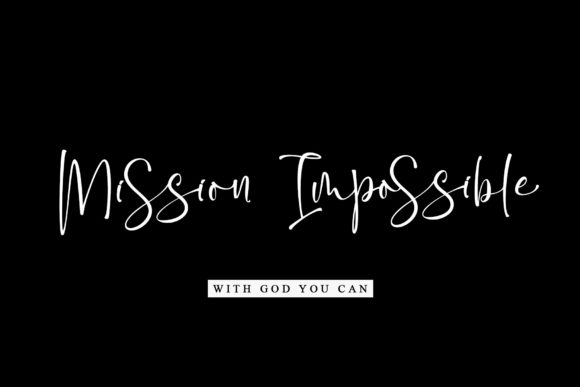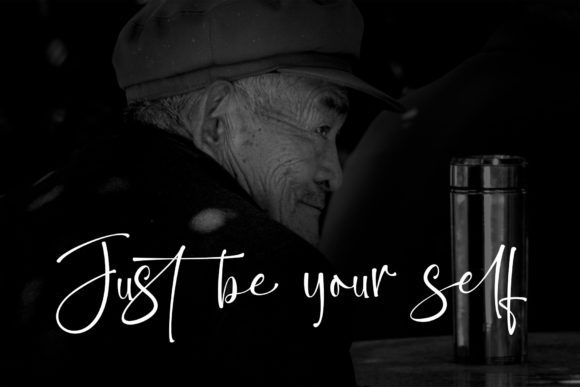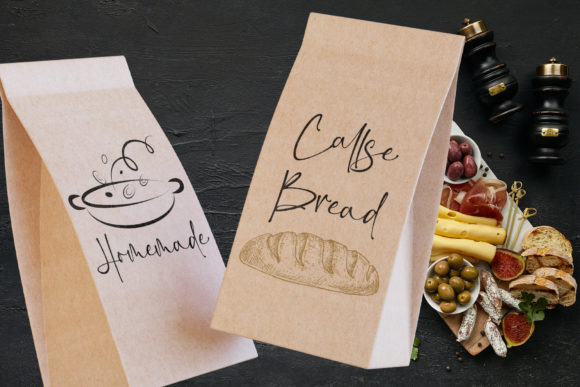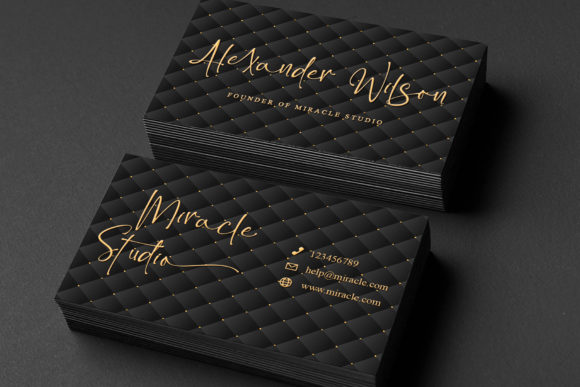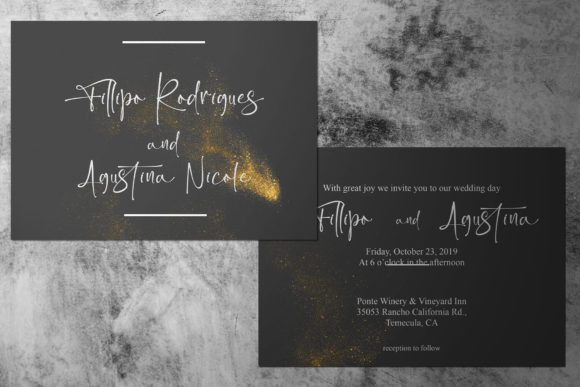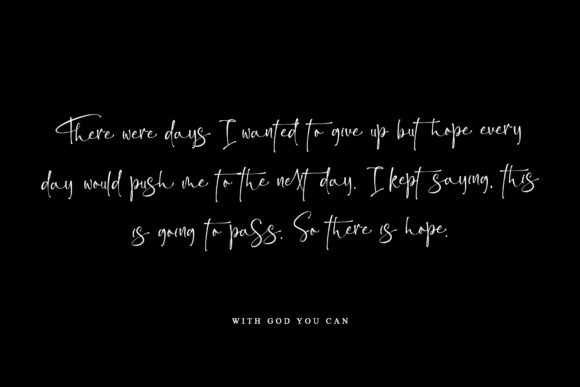
Bittersoni Font: Elevate Your Designs with a Touch of Vintage Elegance
In the world of typography, fonts play a crucial role in conveying the tone and personality of a brand or design. For designers and crafters looking to add a touch of vintage elegance to their work, Bittersoni Font is an excellent choice. This beautiful, well-balanced, and vintage-styled script font is defined by smooth curves, making it perfect for fashion branding or editorial designs.
What Makes Bittersoni Font Stand Out?
Bittersoni Font boasts several features that set it apart from other fonts in its category. Here are a few key characteristics:
- Beautiful and Well-Balanced Design: Bittersoni Font features a stunning, balanced design that exudes elegance and sophistication. Its smooth curves and flowing lines make it perfect for creating visually appealing designs.
- Vintage Styled: With its classic, vintage-inspired design, Bittersoni Font is ideal for designers looking to add a touch of nostalgia to their work.
- PUA Encoded: Bittersoni is PUA (Private Use Area) encoded, which means you can access all of the glyphs and swashes with ease. This feature makes it simple to customize your designs and add unique flourishes.
Perfect for Fashion Branding and Editorial Designs
Bittersoni Font is particularly well-suited for fashion branding and editorial designs. Its elegant, cursive script and vintage flair make it perfect for:
- Fashion Logos and Branding: Use Bittersoni Font to create stunning fashion logos, labels, and branding materials that exude sophistication and style.
- Editorial Designs: Add a touch of elegance to your editorial designs, such as magazines, newspapers, and blogs, with Bittersoni Font’s beautiful, flowing script.
- Stationery and Packaging: Use Bittersoni Font to create beautiful stationery, packaging, and other print materials that require a touch of vintage elegance.
Tips for Using Bittersoni Font Effectively
To get the most out of Bittersoni Font, here are a few tips to keep in mind:
- Pair with Other Fonts: Experiment with pairing Bittersoni Font with other fonts to create visually appealing contrast and hierarchy in your designs.
- Use Swashes and Glyphs: Take advantage of Bittersoni’s PUA encoding to access a wide range of swashes and glyphs, which can add unique flourishes to your designs.
- Experiment with Colors and Textures: Don’t be afraid to experiment with different colors and textures to add depth and interest to your designs featuring Bittersoni Font.
Bittersoni Font is a stunning, vintage-styled script font that offers a unique combination of elegance, sophistication, and versatility. With its smooth curves, PUA encoding, and beautiful design, it’s perfect for fashion branding, editorial designs, and a wide range of other applications. Whether you’re a designer, crafter, or DIY enthusiast, Bittersoni Font is an excellent choice for adding a touch of vintage elegance to your work.